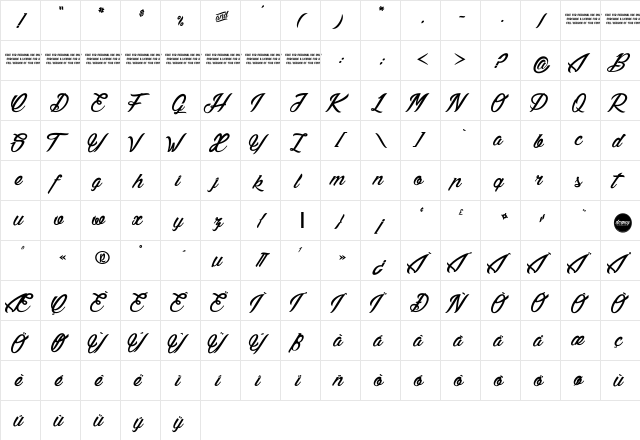
Lily of the Valley_Personal_Use Regular
Design Context for Lily of the Valley_Personal_Use Typeface
Lily of the Valley_Personal_Use is a composed and adaptable typeface that performs quietly and consistently across a wide range of design contexts.